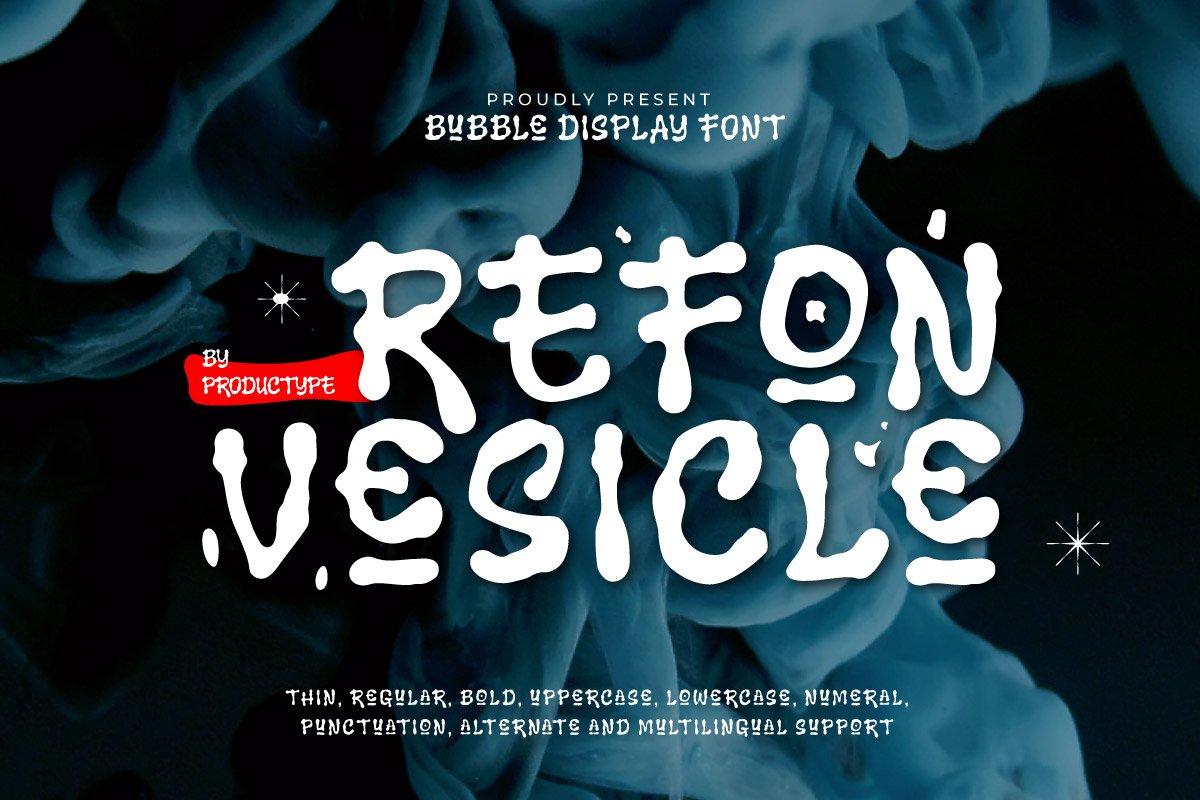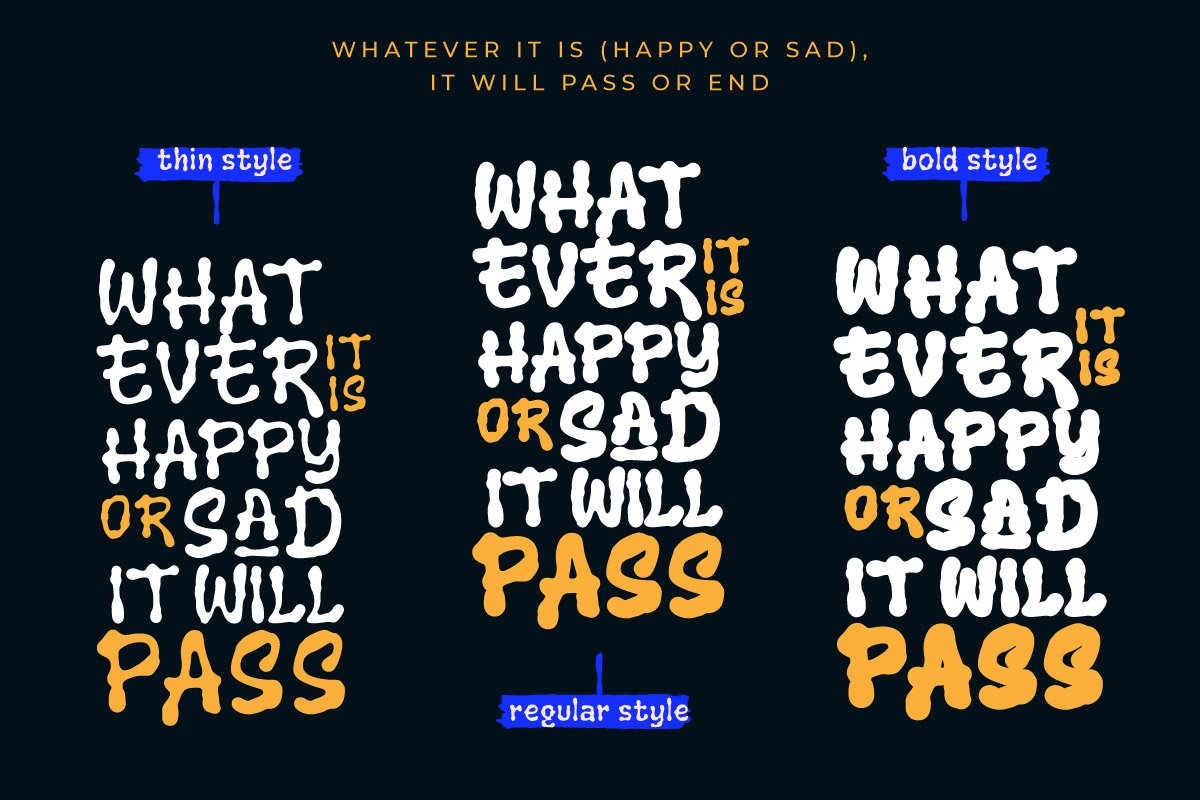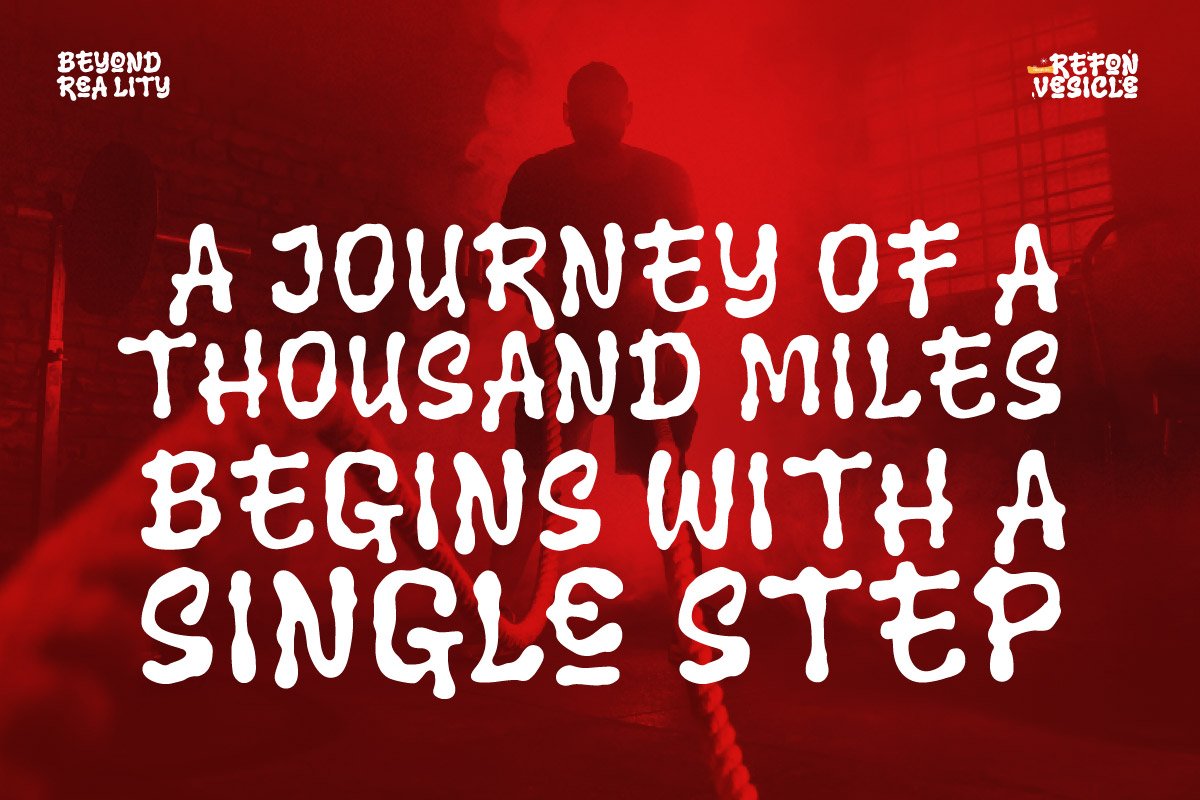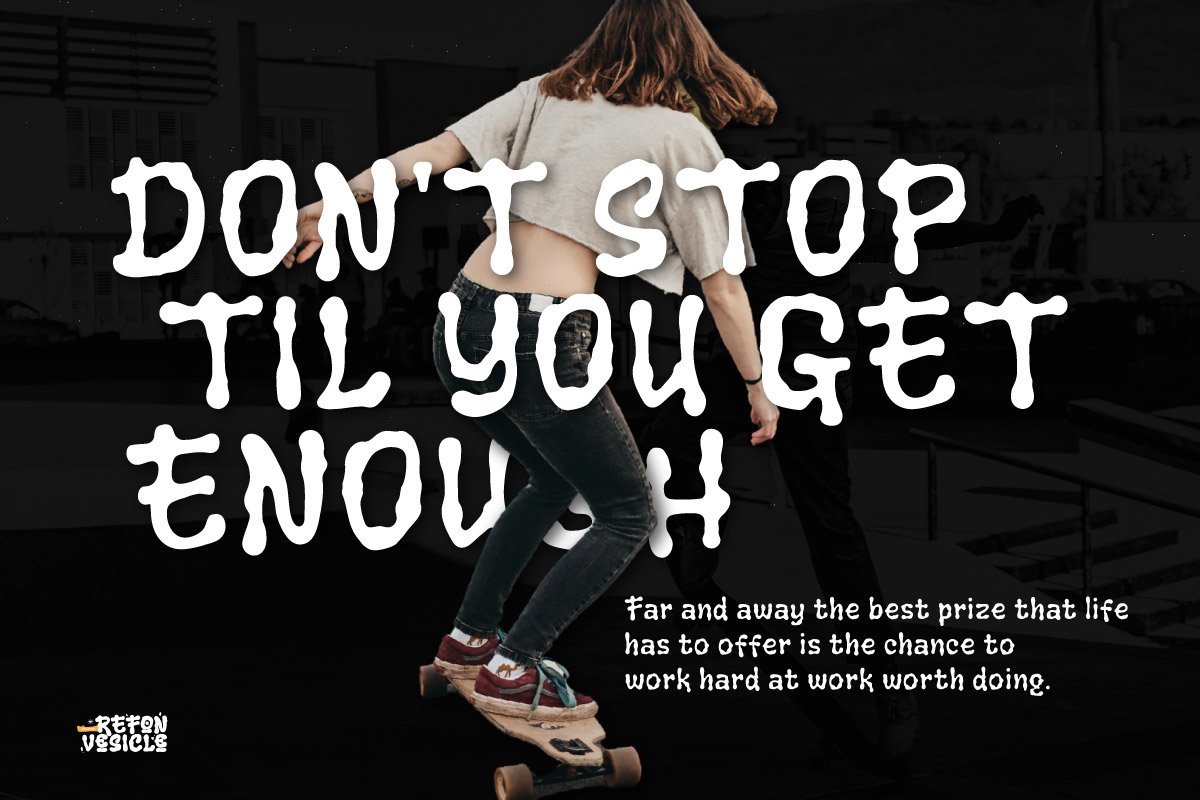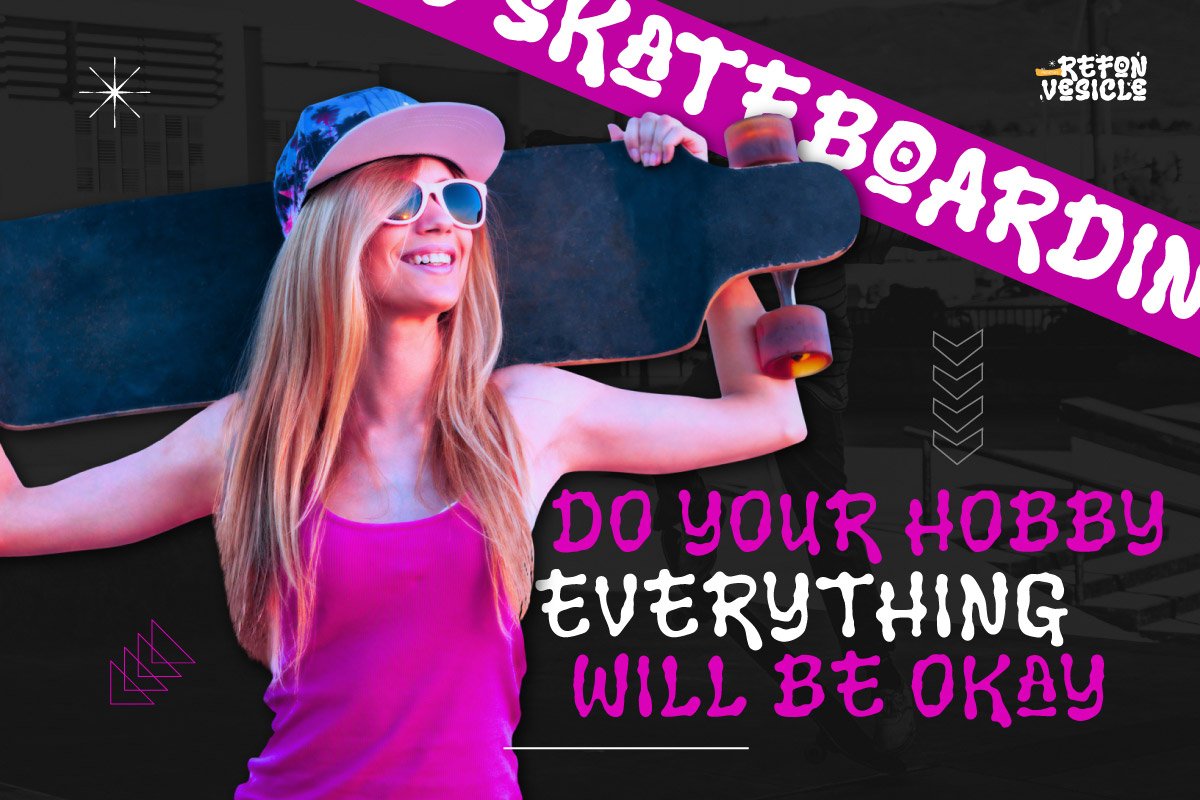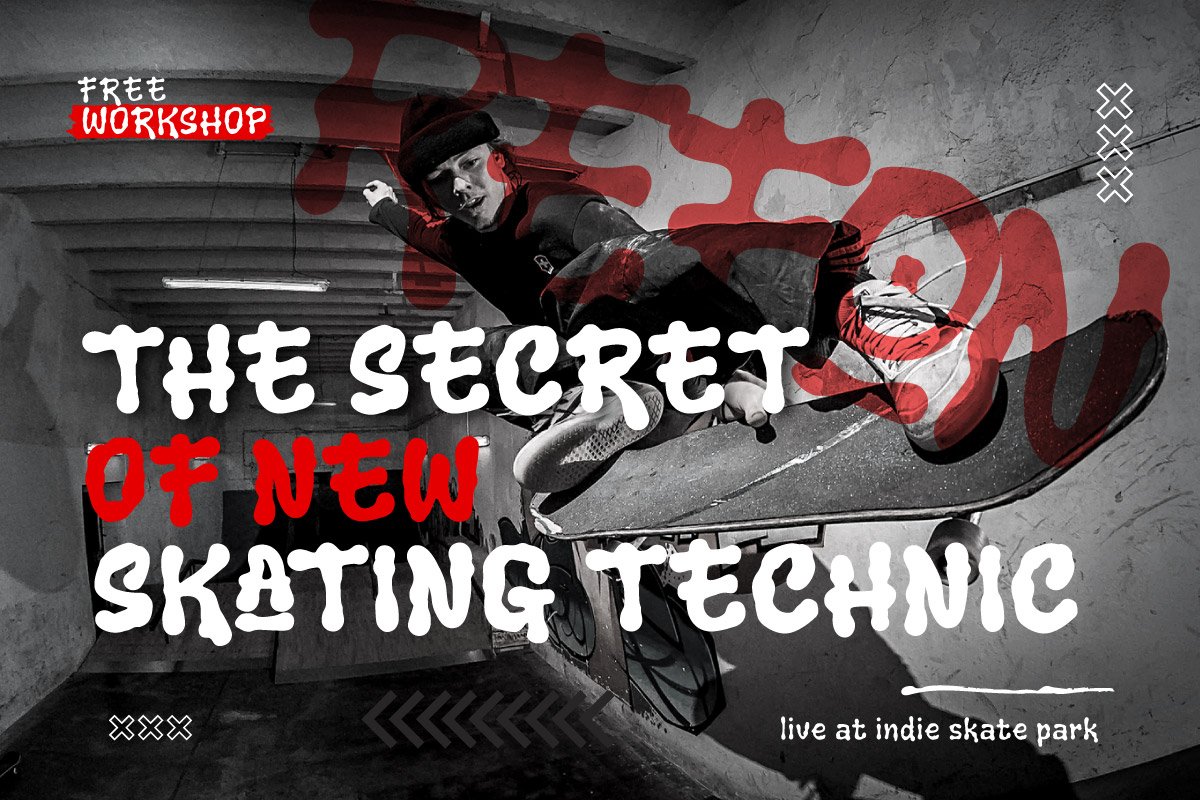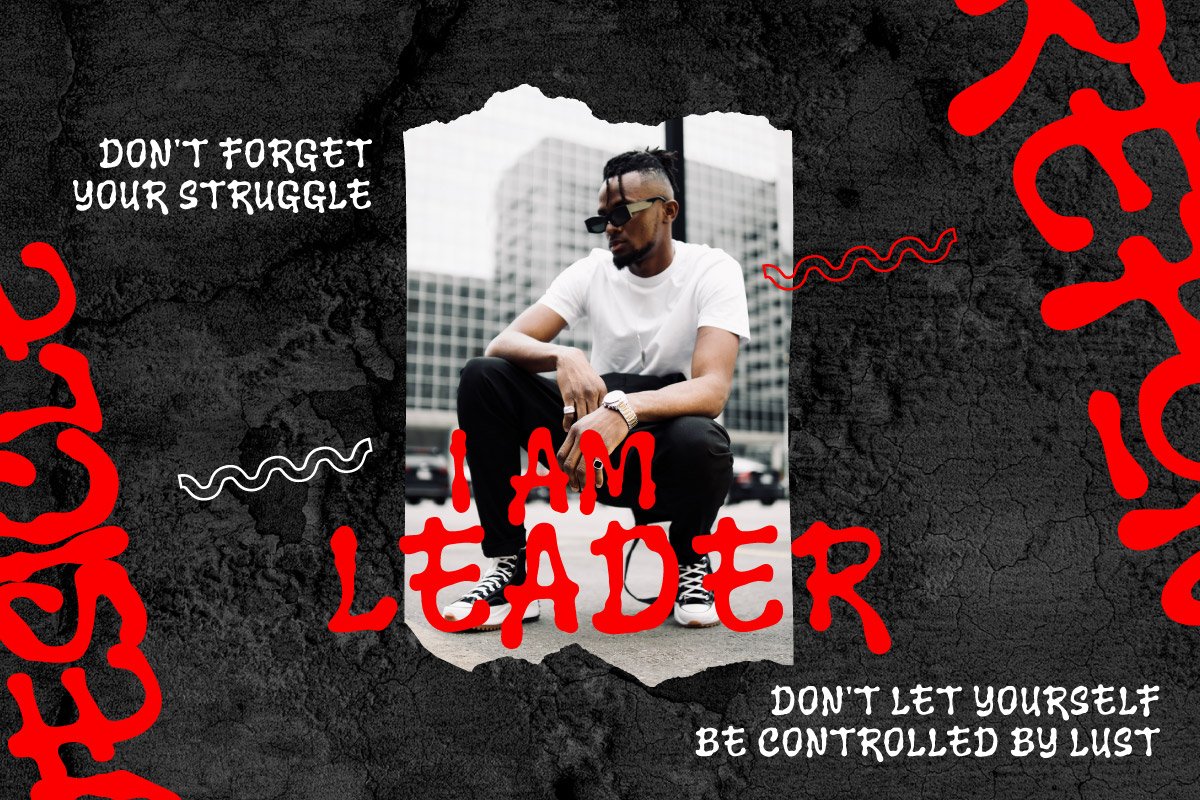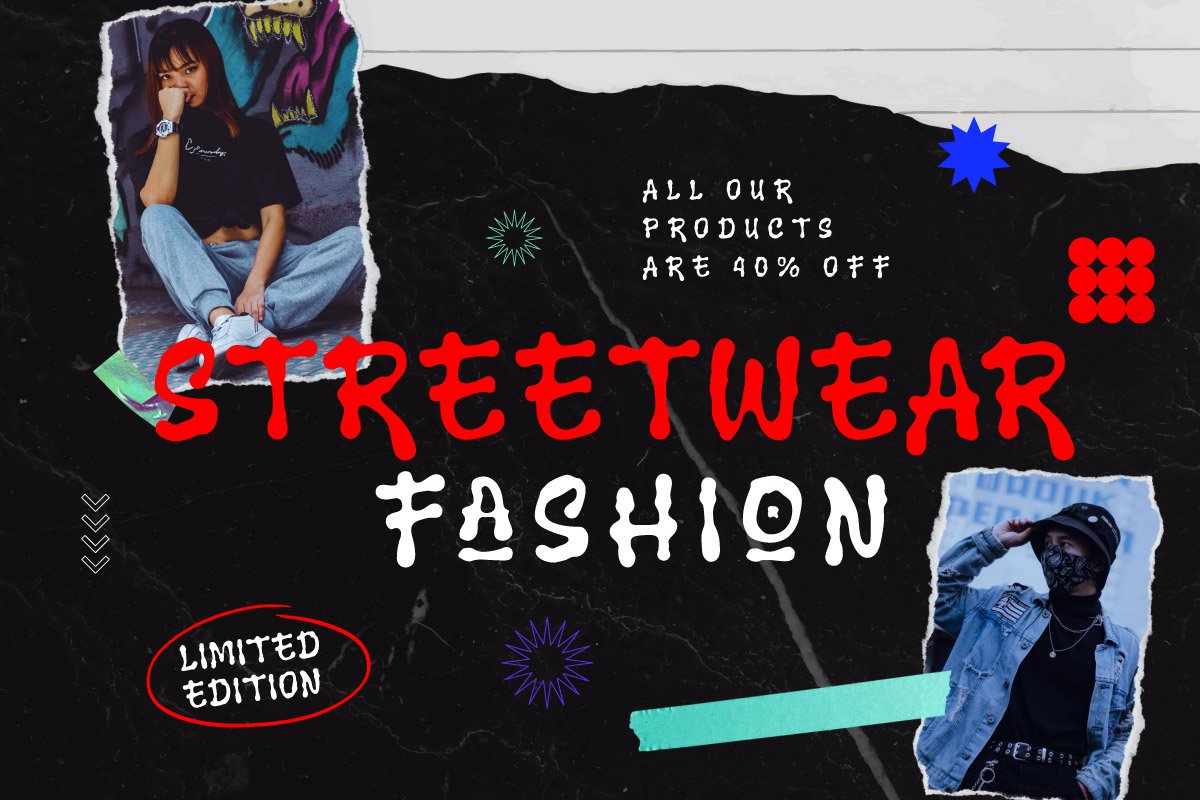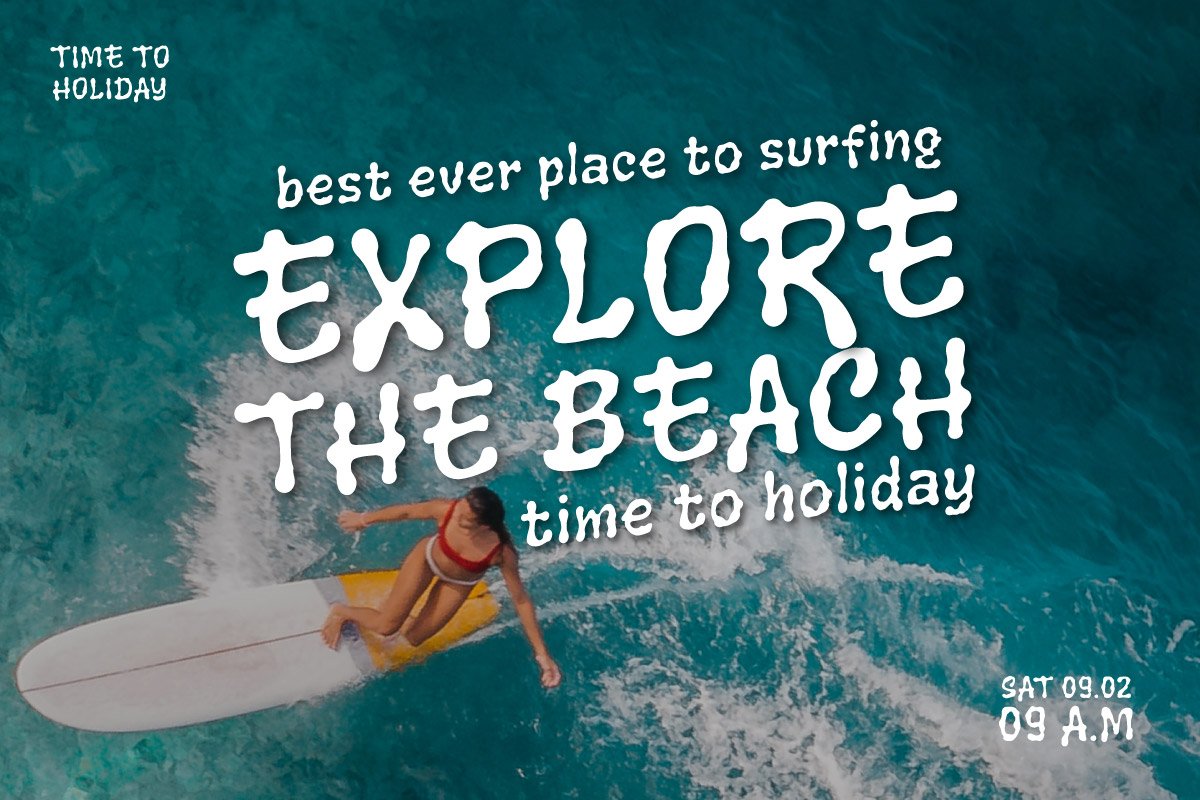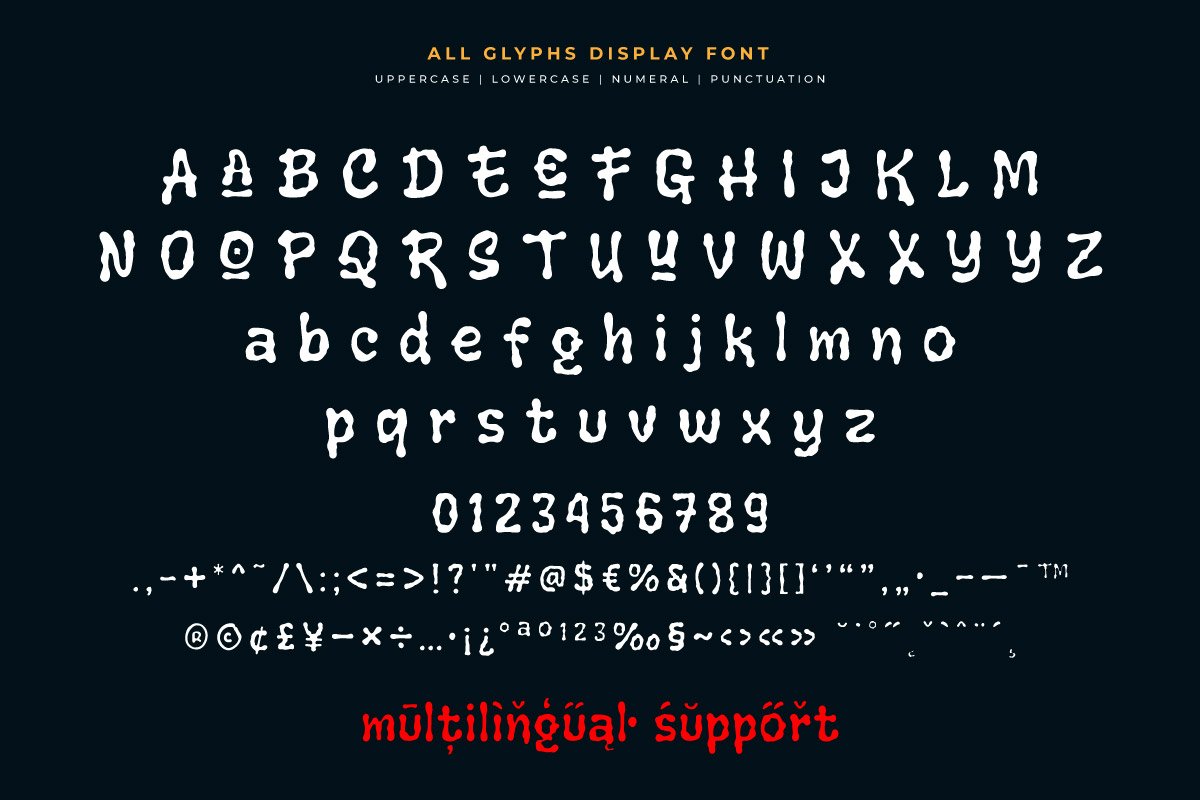
Refon Vesicle – Bubble Graffiti Font
Unleash creativity with Refon Vesicle, a vibrant Bubble Graffiti Font that brings urban street art to life. Perfect for bold posters, eye-catching murals, streetwear designs, and digital artwork, Refon Vesicle features rounded, inflated letterforms inspired by bubble-style graffiti. Each character is designed to capture the playful yet rebellious energy of street culture, making it ideal for designs that need to stand out and make a statement. Refon Vesicle’s thick, bubbly shapes and dynamic flow lend an unmistakable sense of movement to any project. Whether you’re working on branding for a streetwear label, creating an urban-themed event poster, or adding an edgy flair to digital graphics, Refon Vesicle delivers an unmistakable graffiti vibe that grabs attention. The font’s versatility allows it to fit into both modern and retro-inspired designs, making it perfect for diverse creative applications. Take your designs to the streets with Refon Vesicle, the Bubble Graffiti Font that combines playful form with bold, urban attitude.